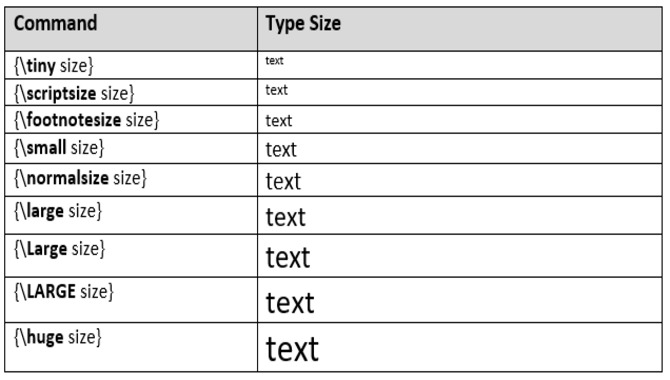
LaTeX Font Basics is a fundamental concept that every LaTeX user should understand. LaTeX offers a variety of font families to choose from, including Serif, Sans-Serif, and Monospace fonts.
Fonts can be customized and adjusted for size, weight, and style using LaTeX commands. Understanding how to change the font of specific sections or elements in a document is essential for creating visually appealing and readable documents.
LaTeX is a powerful tool for creating professional documents, but getting the font right can be challenging. With so many options and commands, getting lost in the details is easy. Here we will guide you through the basics of change LaTeX font and provide tips and tricks for fine-tuning your document. We will cover everything from understanding LaTeX font families to emphasizing text and using different font styles.
Why Is Latex Font Change Important?
The importance of the LaTeX font change cannot be overstated. Choosing the right font can greatly enhance your document’s readability and visual appeal. Different fonts have varying weights, styles, and sizes that can affect the overall look of your document.
With LaTeX, you can access various font families, such as serif, sans-serif, and monospace fonts, which can be customized using various commands. You can create a visually appealing document that effectively communicates its message by selecting appropriate fonts based on your document’s purpose, audience, and content. So whether you’re creating a manuscript or a presentation, getting the right fonts is key to ensuring your work looks professional and polished.
How To Change Latex Font Effectively
Fine-tuning your document’s font in LaTeX can seem overwhelming, but it doesn’t have to be. With the right tools and techniques, you can easily change fonts to create a polished and professional-looking document. One popular method is the fontspec package, which provides access to various fonts, including Google Fonts.
Additionally, you can easily adjust the font size, weight, and style using commands like \fontsize, \textbf, and \textit. For those looking to customize their font, packages like XeLaTeX or Lua LaTeX allow access to system fonts unavailable by default in LaTeX. With these tools, changing your document’s font has never been easier.
Built-In Font Sizes
Choosing the right font size ensures readability and a polished look for your LaTeX document. Fortunately, LaTeX has built-in font sizes that make it easy to adjust the size of your text. The default font sizes in LaTeX are 10pt, 11pt, and 12pt, but you can also specify custom font sizes using the \fontsize command.
It’s important to choose a font size that is appropriate for your document and audience. Different fonts can also affect the overall appearance of your document, so experimenting with different sizes and styles can help you find the perfect fit.
Customizing Font Sizes In Latex
Using consistent font sizes throughout your document is crucial for achieving a professional look. While LaTeX offers a wide range of font sizes to choose from, sometimes the standard options may not meet your needs.
The good news is that you can define custom font sizes with LaTeX using the \fontsize command. This allows you to set any size within a range of 1pt to 24.88pt, making it easy to achieve the perfect balance between readability and style.
It’s important to test your document after making font size changes to ensure it still looks good and is readable. Using too large or too small fonts can affect the overall appearance of your document and make it difficult to read. By customizing font sizes in LaTeX, you can ensure that your document looks professional and is easy on the eyes.
Emphasizing Text In Latex
Using different font styles can help emphasize the text in your LaTeX document. One way to achieve emphasis is to use bold or italic fonts for important words or phrases. Boldface, in particular, emphasizes a word without making it look out of place in the body of the text.
However, it’s important not to overuse these effects as they can become distracting and reduce readability. Another way to draw attention to specific text is by changing its color or size. Using a larger font size for headings, subheadings, and captions makes them stand out from the rest of the text and adds hierarchy to your document.
Additionally, using different font styles such as Serif, Sans-Serif, and Monospace can also add variety to your document while maintaining consistency. By using LaTeX commands like \textbf{} and \emph{}, you can easily format your text according to your needs.
Bold, Italic, And Underline In Latex
Using bold, italic, and underlining is a great way to emphasize text in LaTeX documents. While underlining can be confusing and should be avoided, both bold and italic fonts are widely used. Bold text is perfect for highlighting important words or phrases, while italics work well for book titles or foreign words.
5.What Are The Benefits Of Using Latex Change Font?
Ans: Using latex change font in your document allows you to easily customize the font style and size, which can improve readability and aesthetics. It also helps you adhere to specific style guidelines or formatting requirements.
Latex change font gives you more control over the visual presentation of your document, allowing you to create a professional-looking final product that meets your exact specifications.